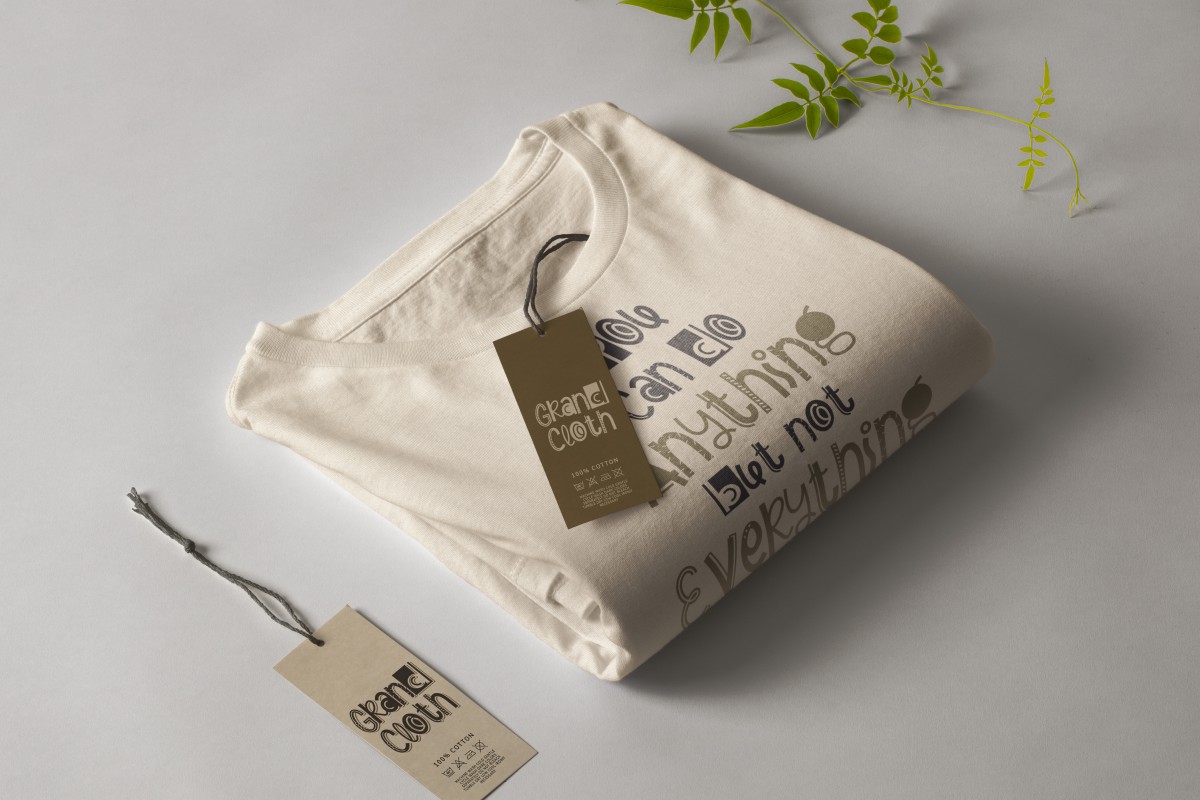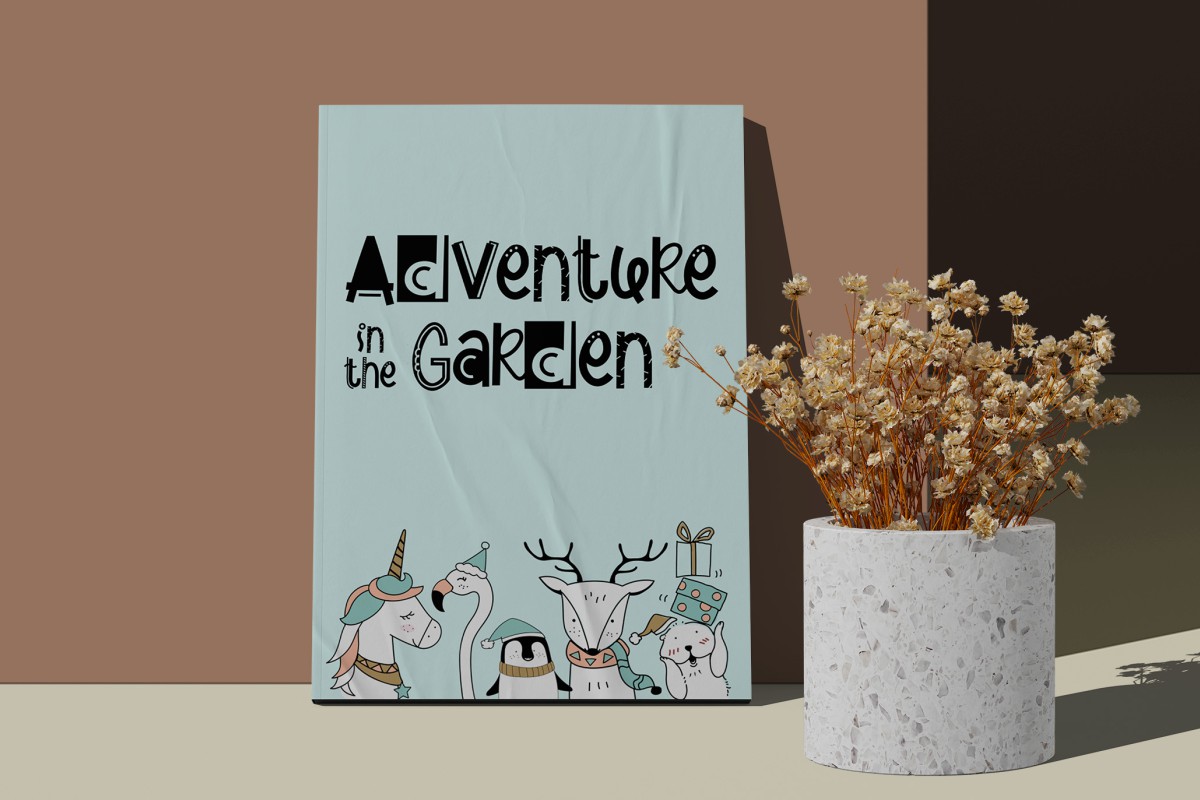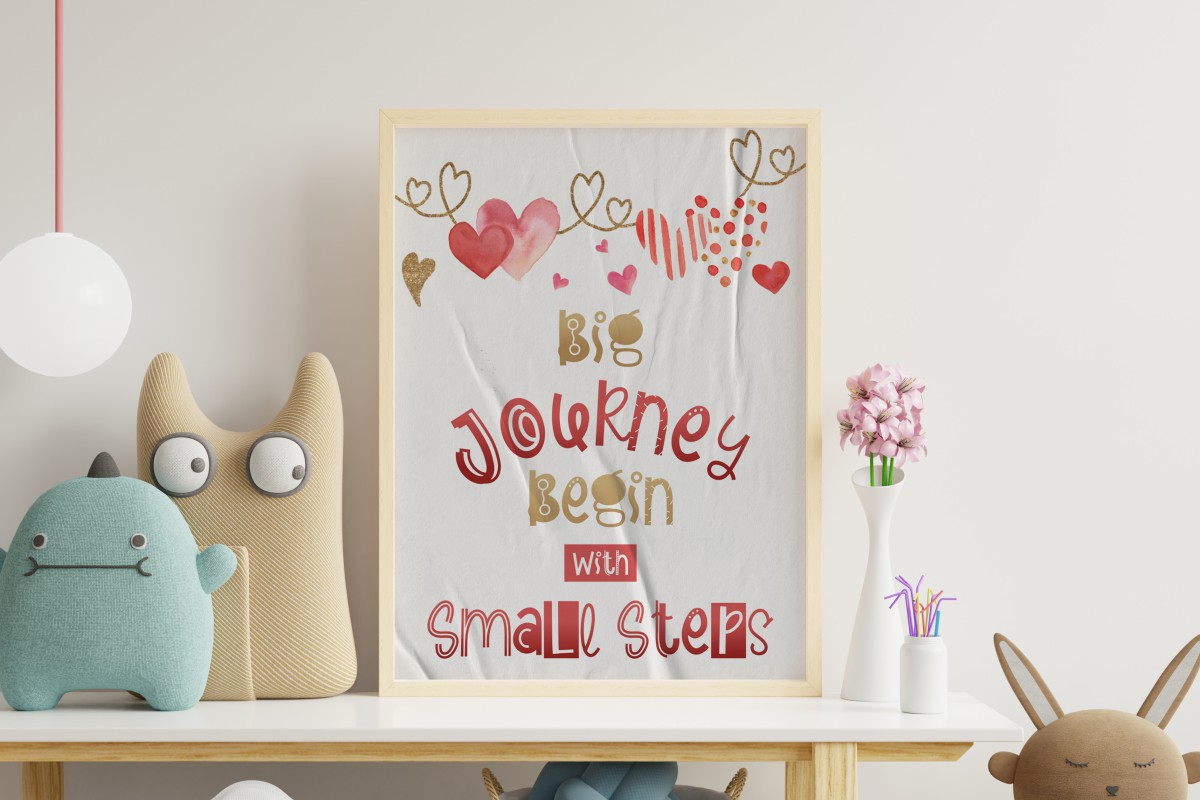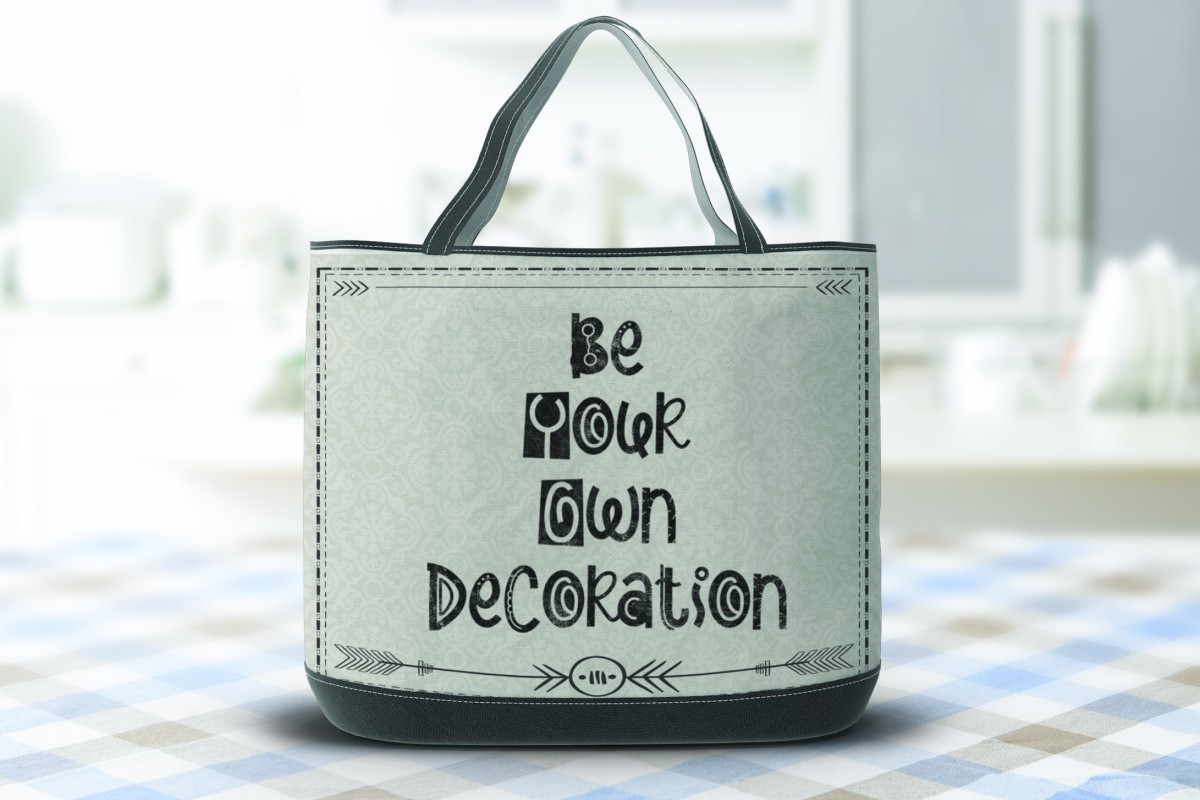
Happy Decor Font
Happy Decor Display Font
It’s a playful decorative font with crafting and DIY theme. This is a unique lettered font with fun display. It embodies playfulness and authenticity and is the perfect choice for any handicrafts, children activity or school project.